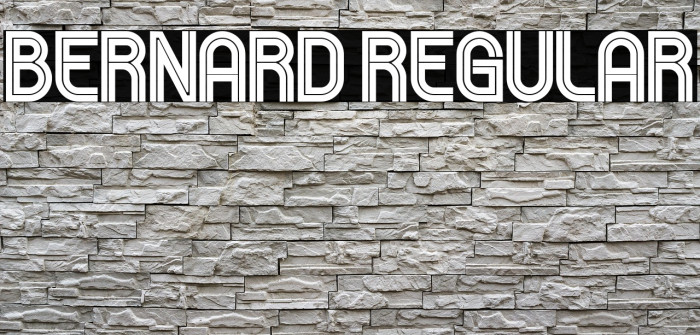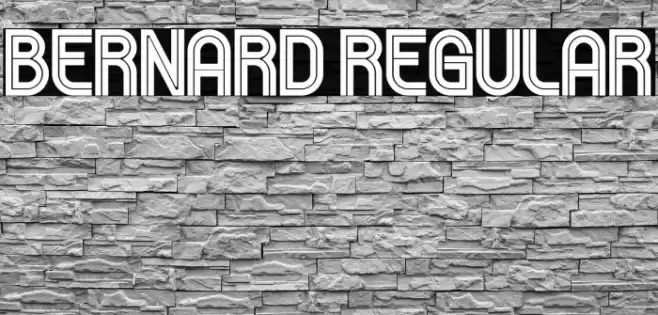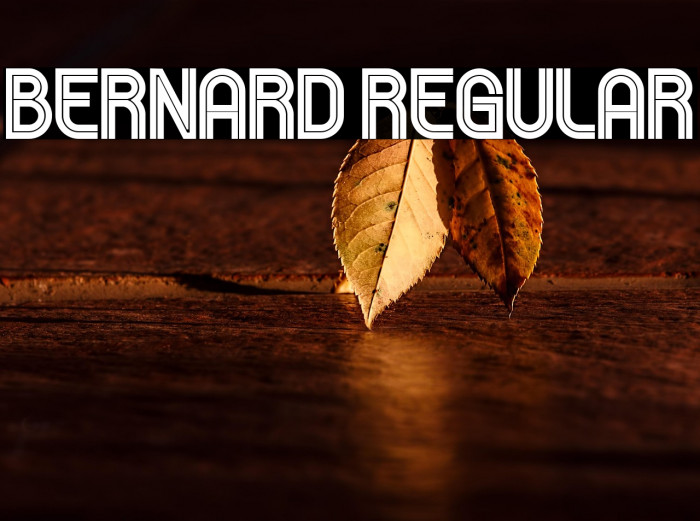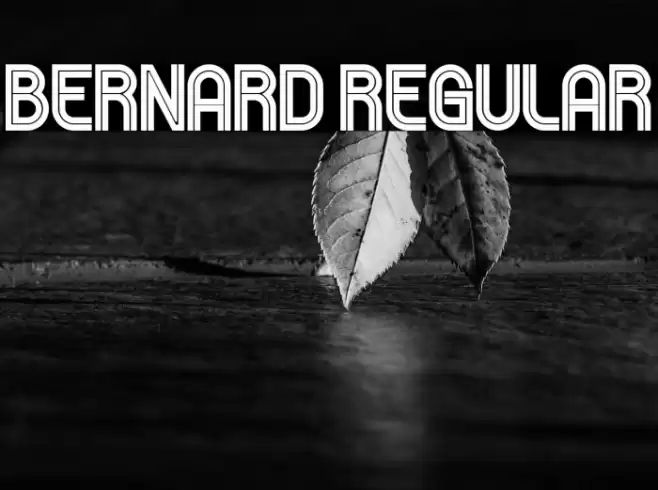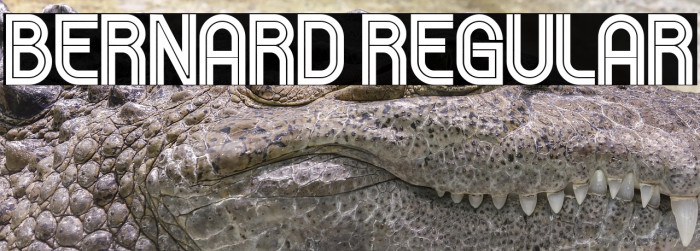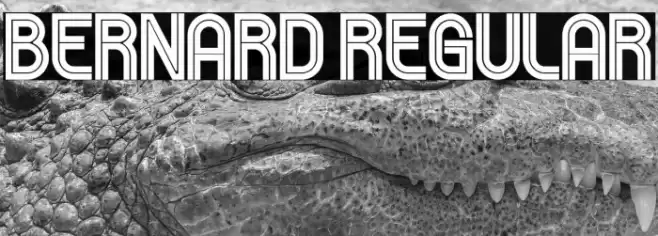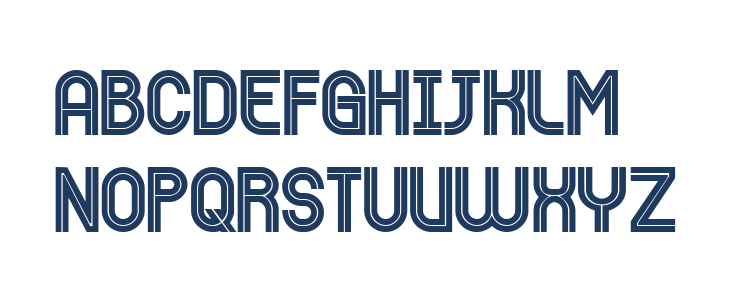
Bernard Regular Font
Bernard Regular Description
This font features a bold, geometric design with a double-line structure that creates a striking visual effect. The characters are uppercase and numerals, with a consistent width and height, giving a uniform appearance. The lines are evenly spaced, providing a clean and modern look. The font's unique style makes it stand out, with a futuristic and decorative appeal. It is well-suited for projects that require a bold statement, such as headlines, posters, and branding materials. The overall design is both eye-catching and versatile, making it a great choice for creative and innovative projects.
Proposed ProjectsIdeal for headlines, posters, branding, and creative projects requiring a bold statement.